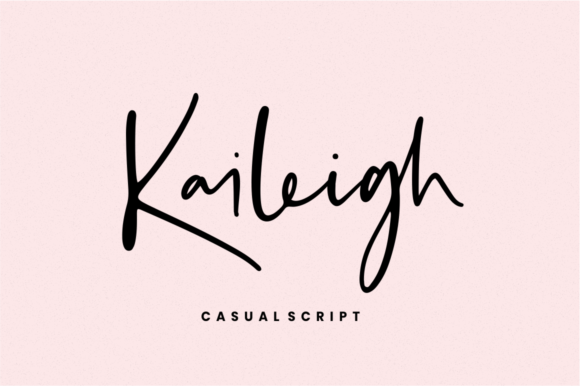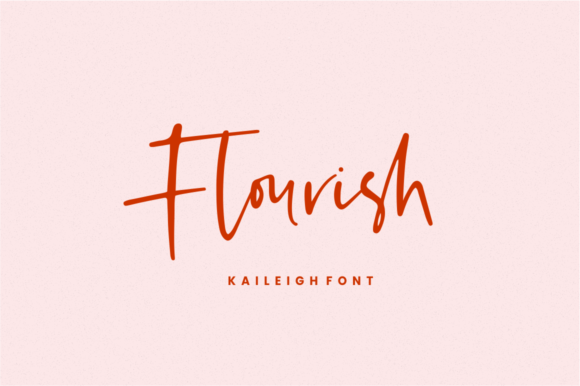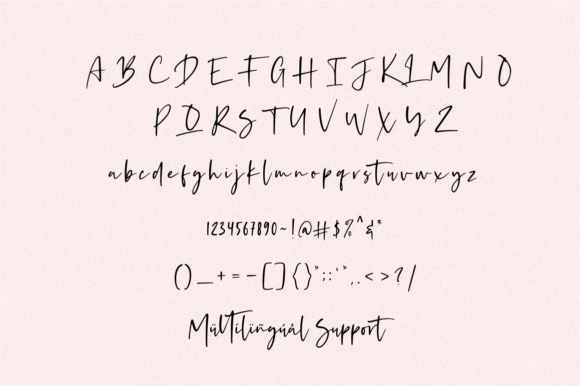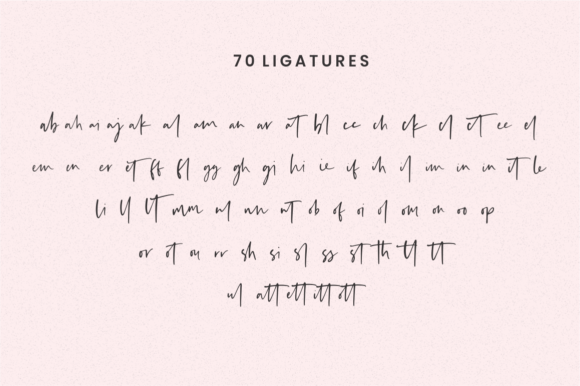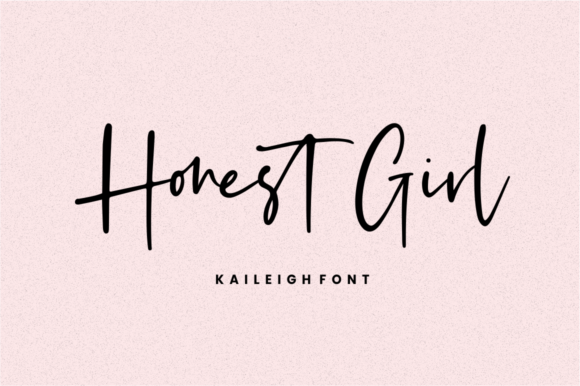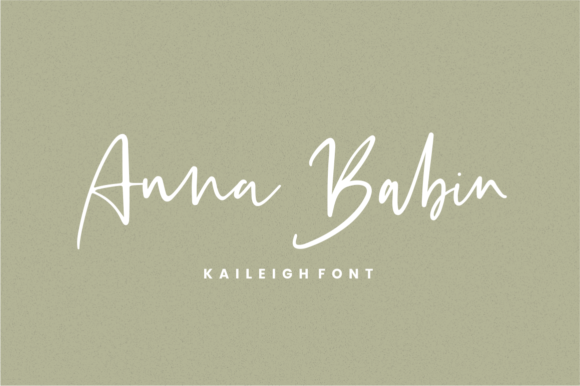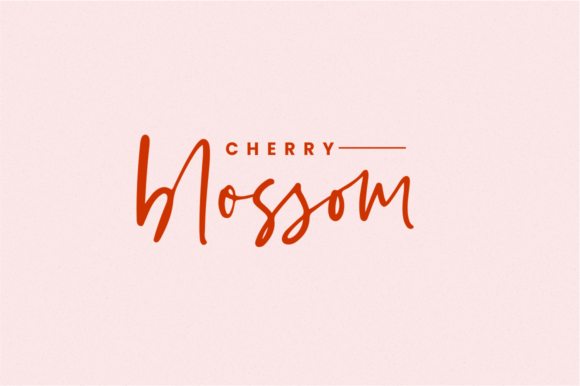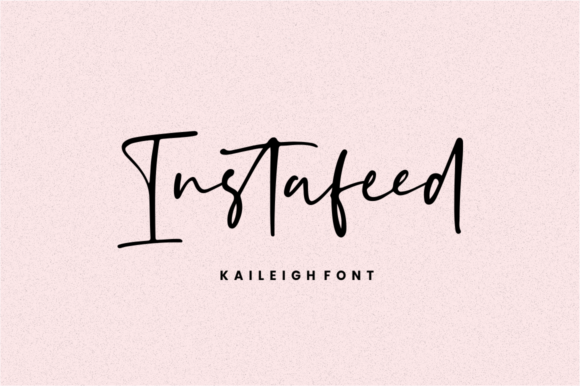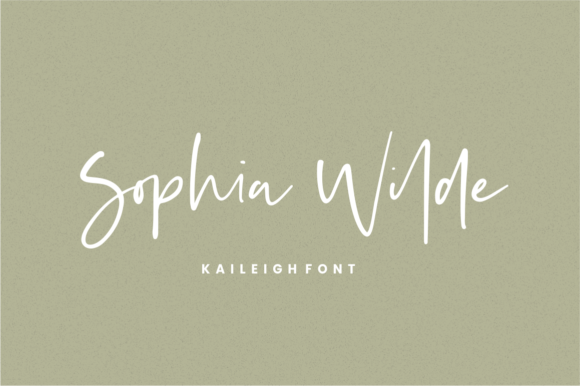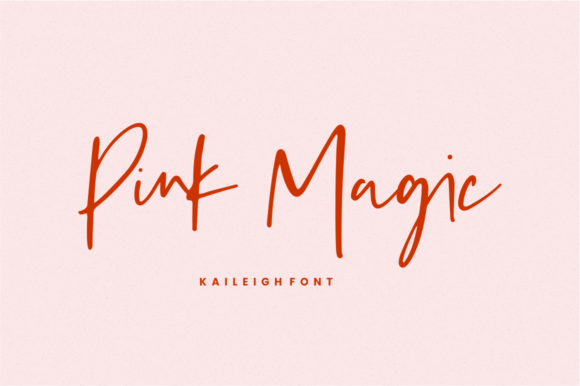
Kaileigh Font
About Kaileigh Font
Fall in love with Kaileigh! This one-of-a-kind handwritten font will effortlessly turn any design project into a true stunner.